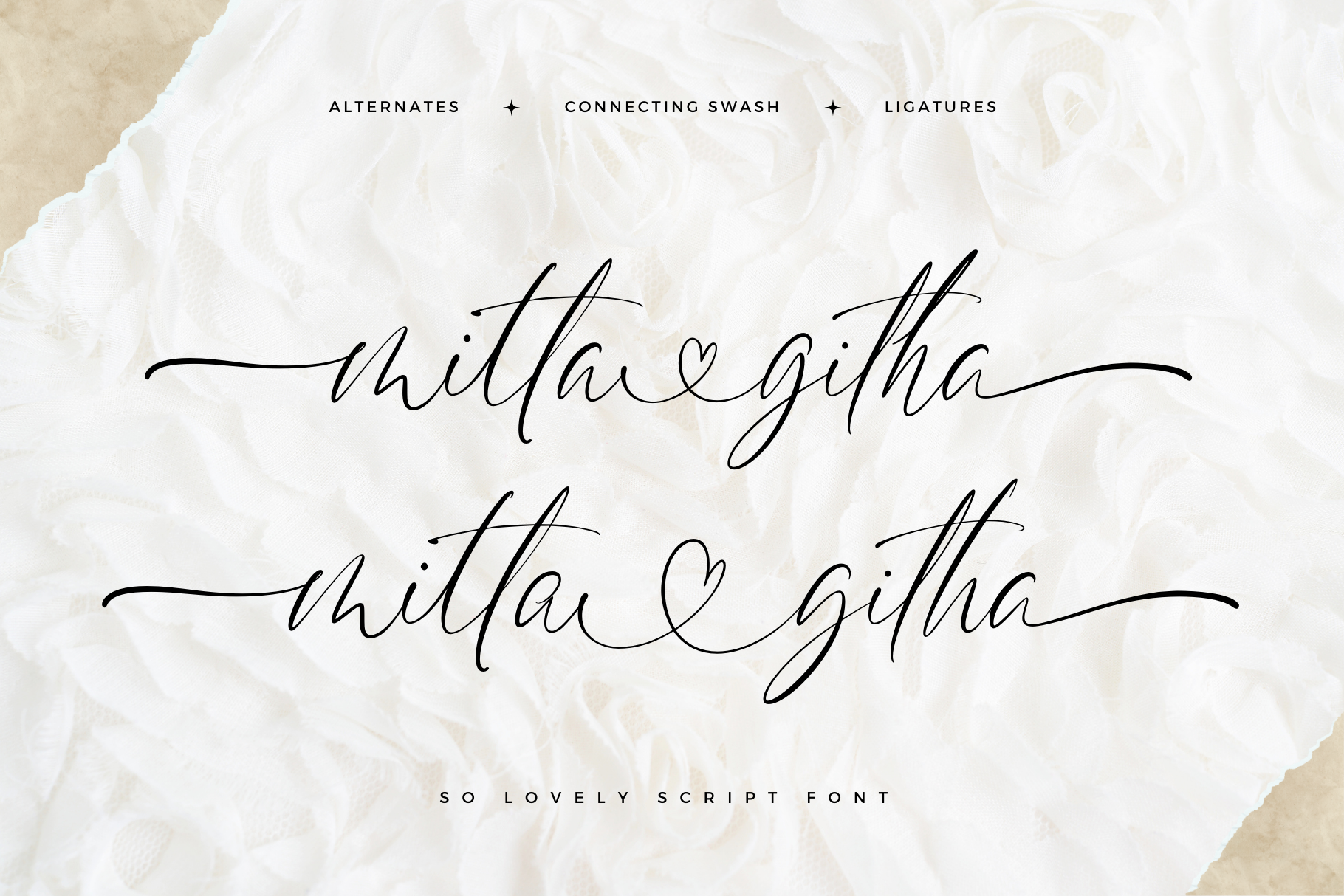
Mitta Githa - A Lovely Script Font
"Mitta Githa" is more than just a font, it's a vehicle for expressing love and style in your designs. With its carefully crafted letters, alternates, and romantic style, it empowers you to infuse your projects with a touch of elegance and heartfelt emotion. Whether you're planning a Wedding, crafting a Valentine's Day surprise, or adding a loving touch to your design project, "Mitta Githa" will be your faithful companion in delivering messages of love and style.
- A set of uppercase and lowercase glyphs
- Number, symbol, and punctuation
- Alternates and ligatures
- Heart Connecting
So easy to use Heart Connecting